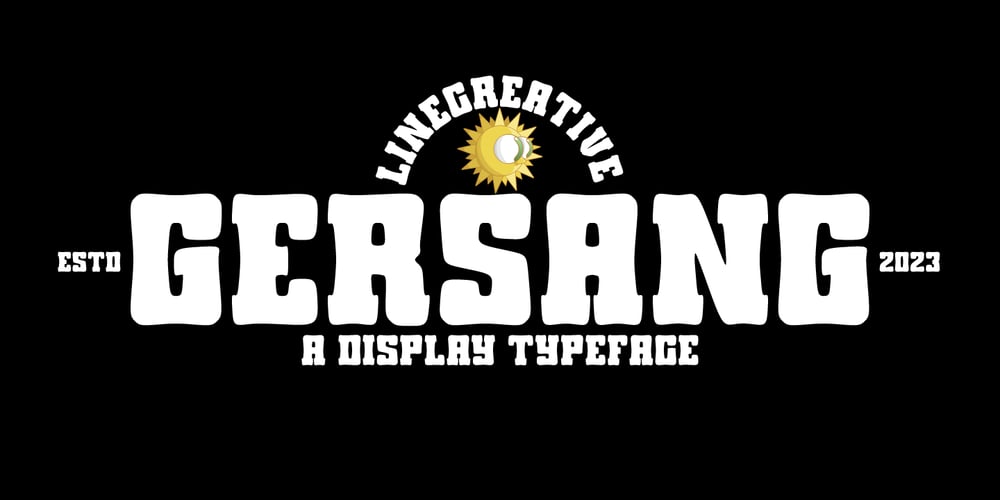
Gersang Font Family was designed by Ari Juanda and published by Linecreative. Gersang contains 1 styles and family package options. Gersang is a retro groovy font with rounded corners that is perfect for designing with a retro style. With bold style and unique shapes, Gersang is the perfect choice for those seeking a retro font that will create eye-catching and memorable designs.